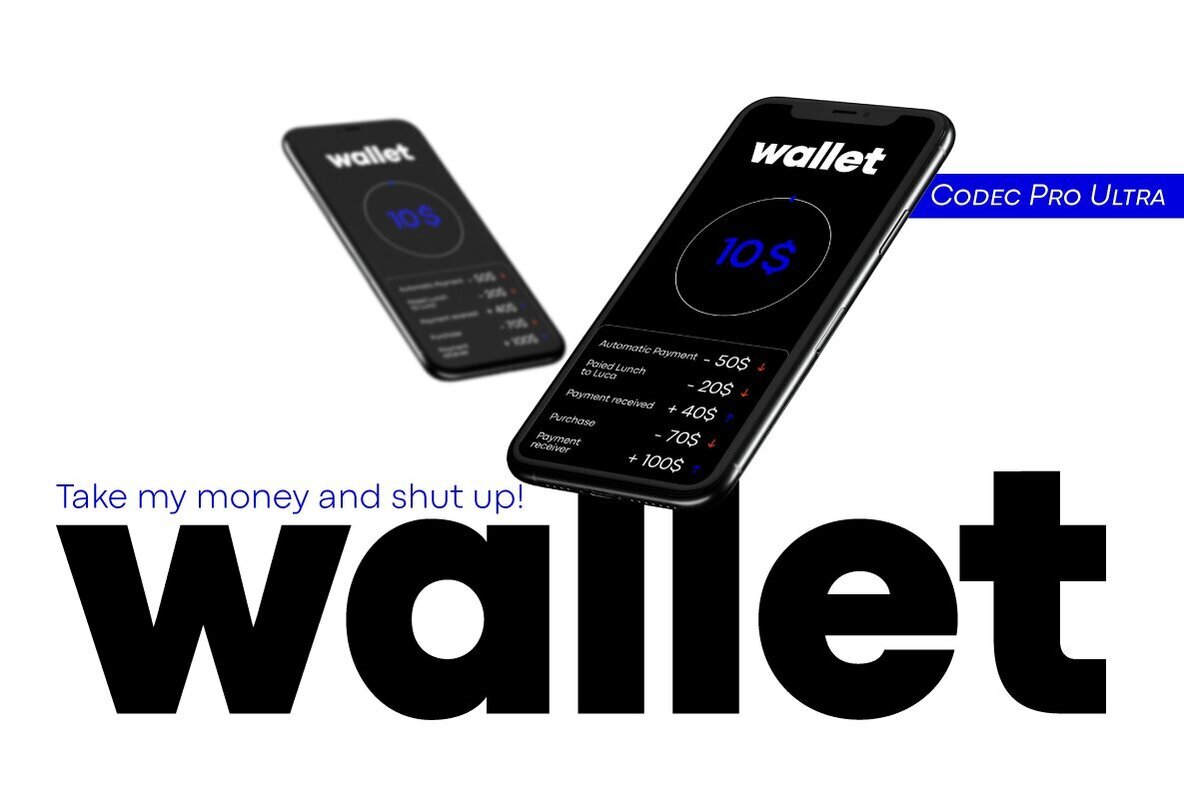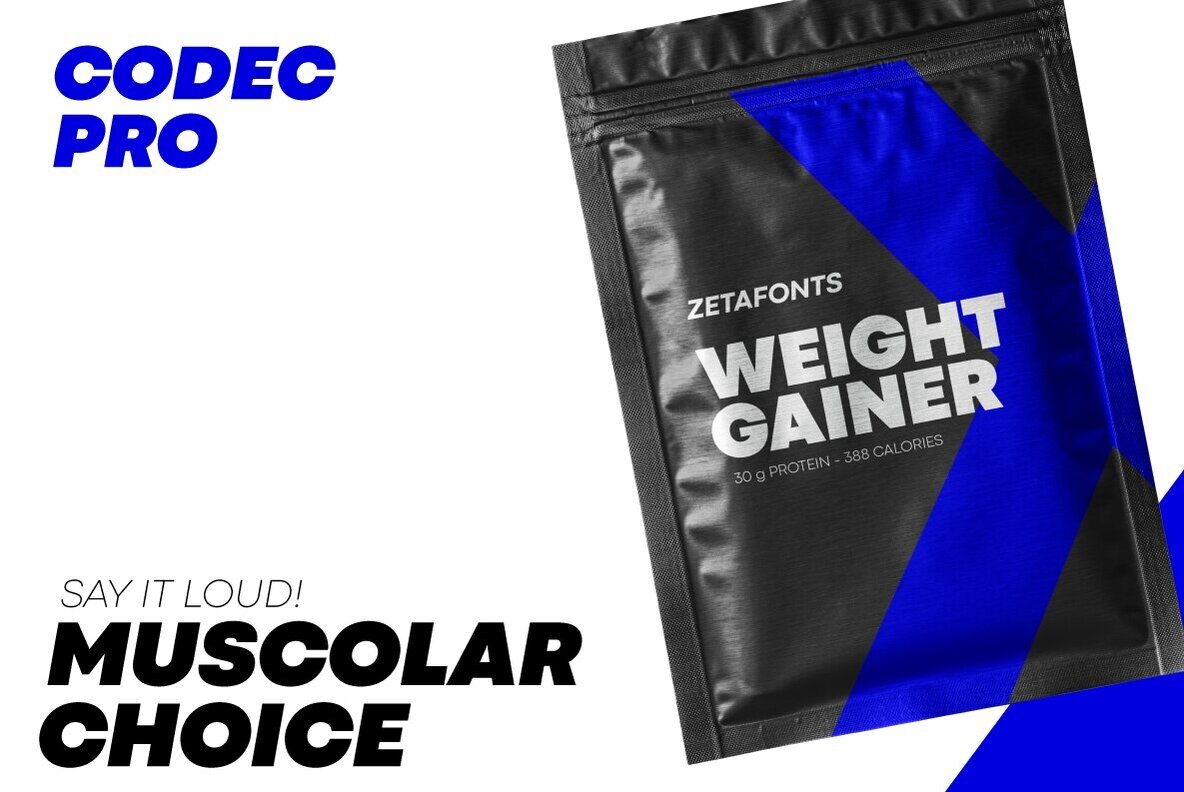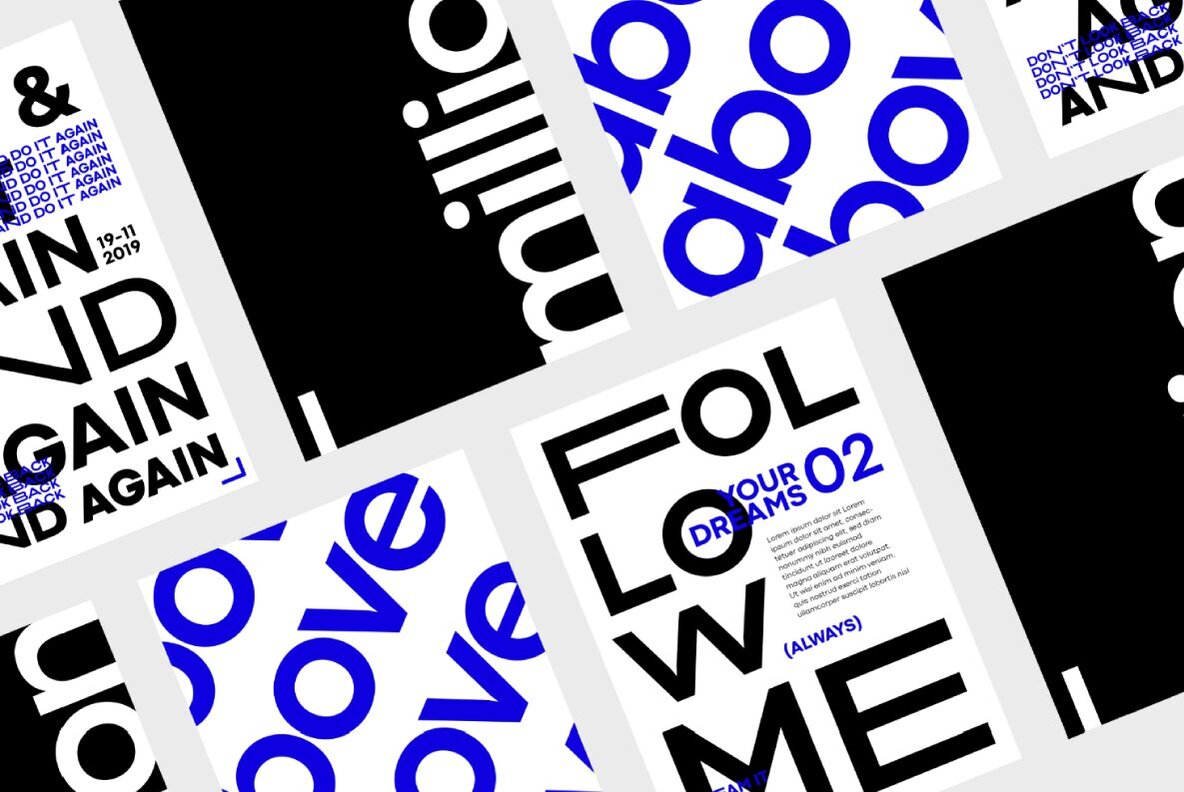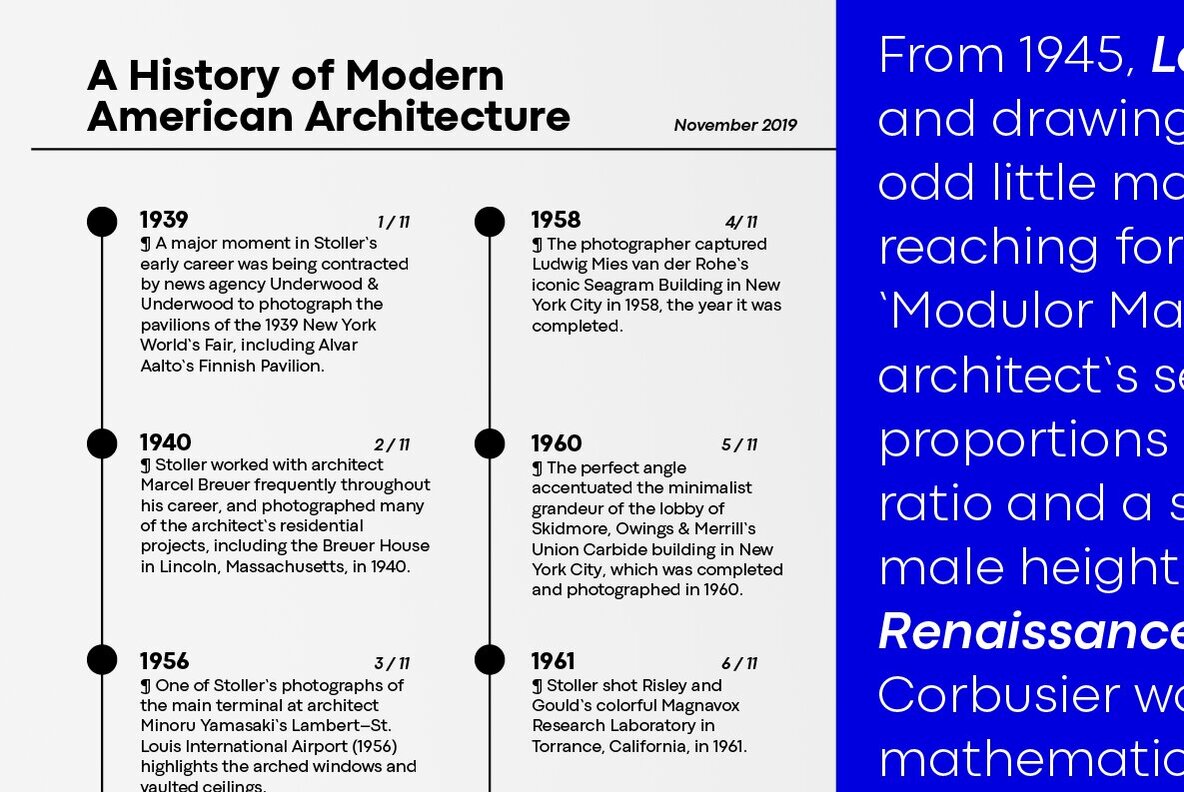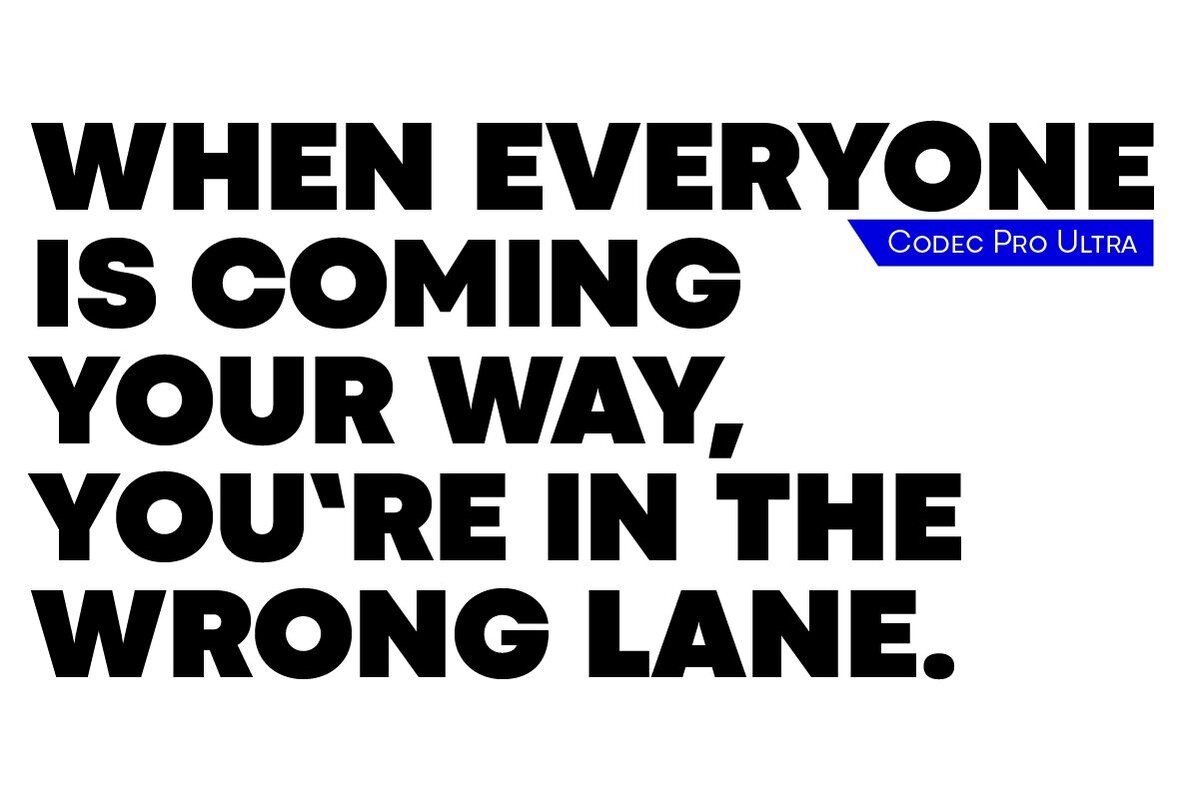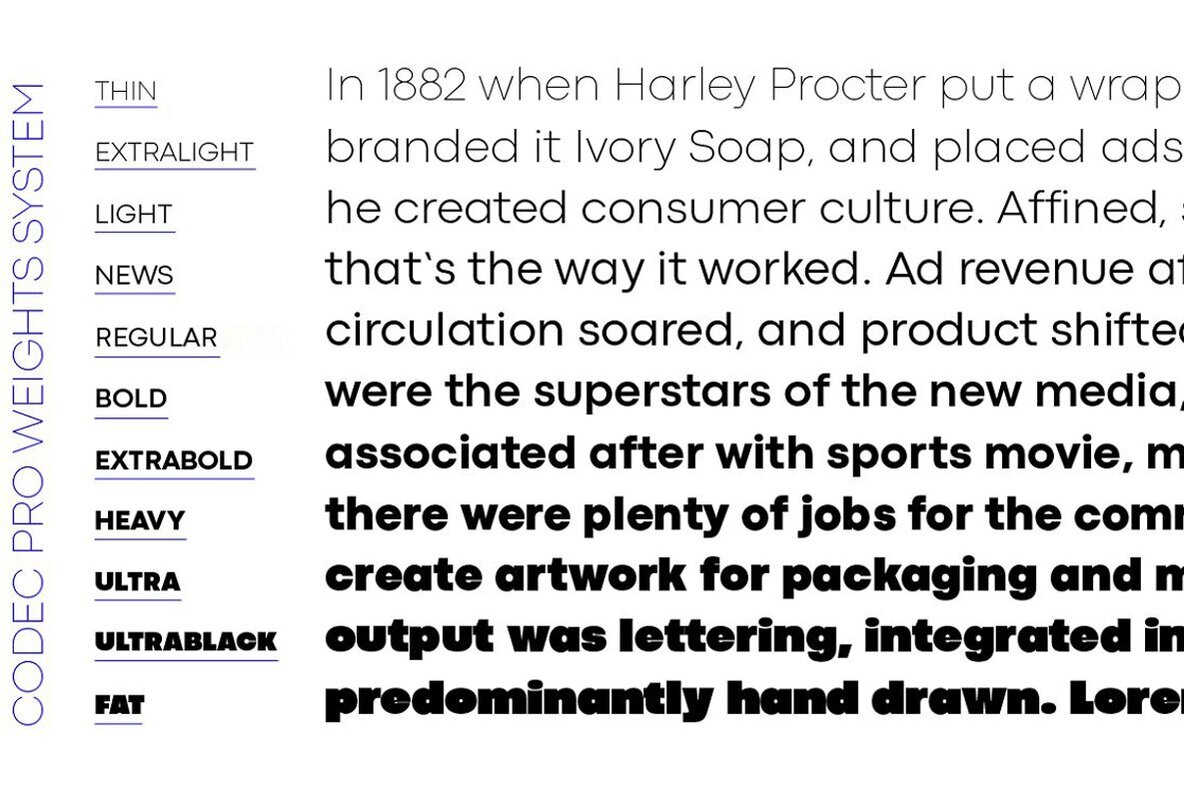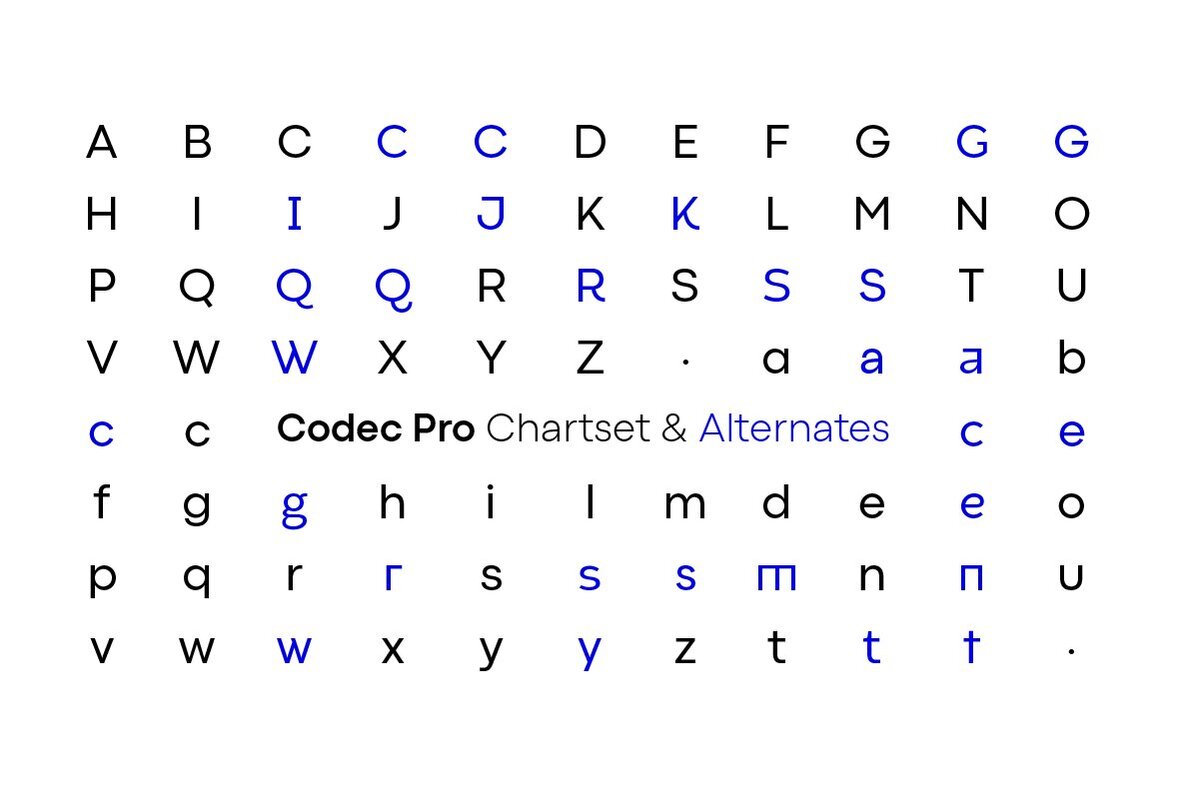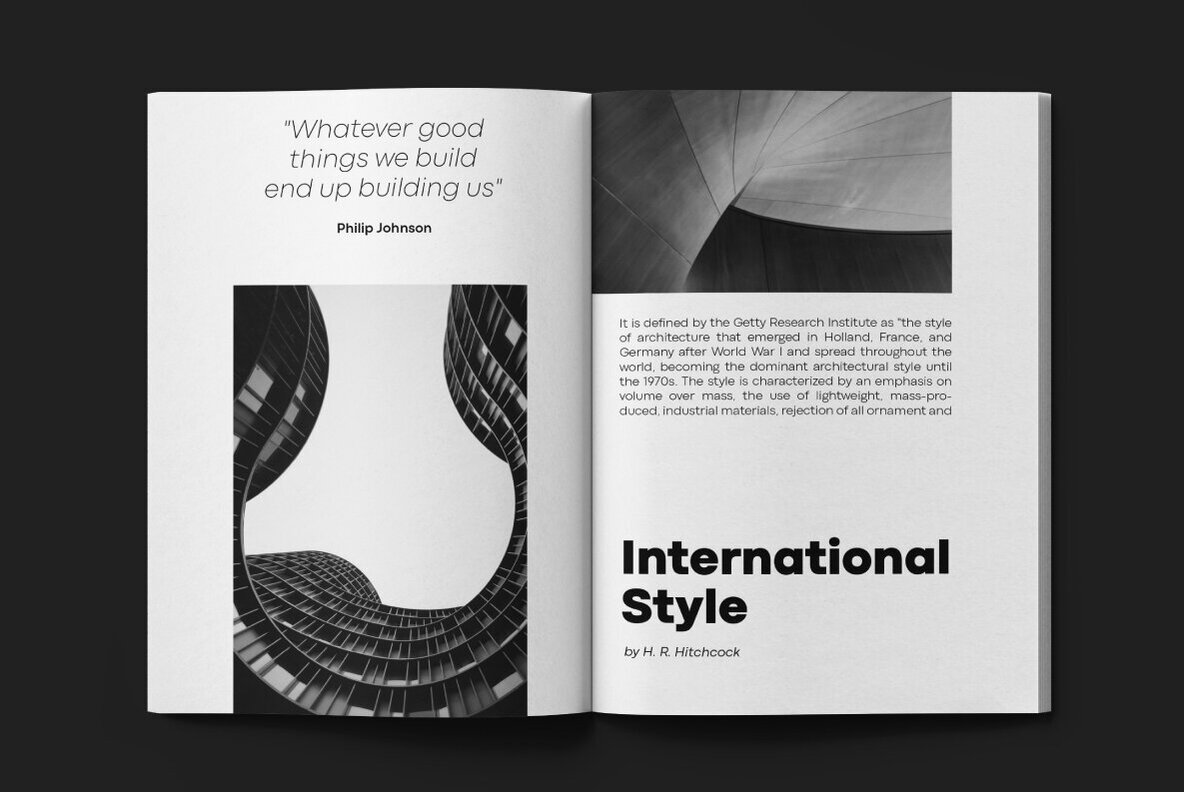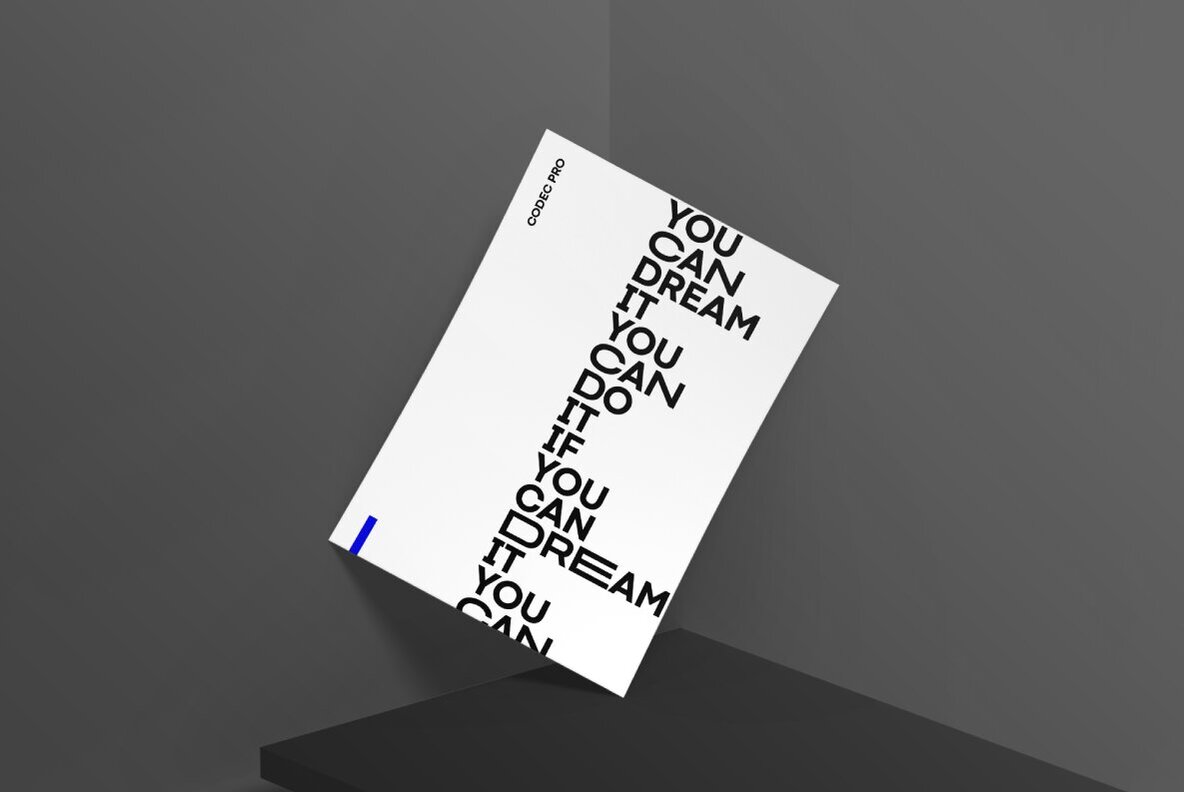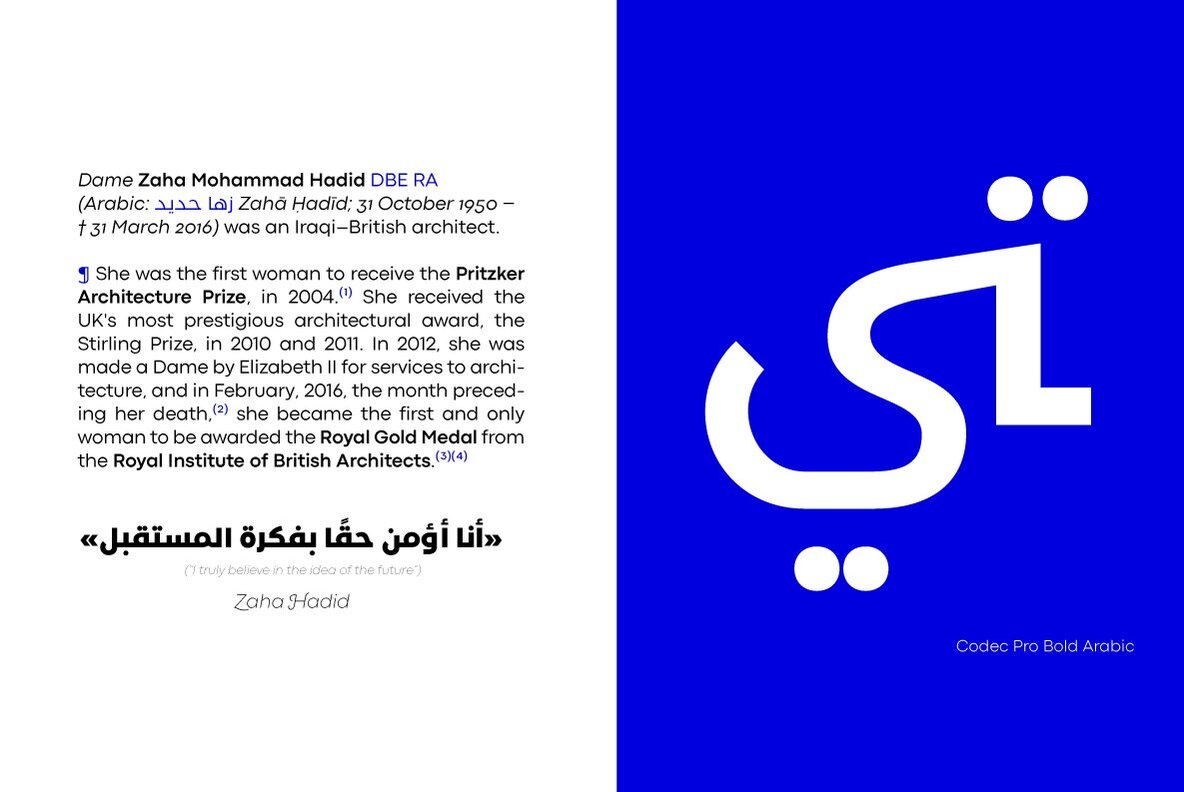
Codec Pro Font
Codec Pro is the newest incarnation of the Codec family, developed in 2017 by Francesco Canovaro, Cosimo Lorenzo Pancini and Andrea Tartarelli as a research on the subtleties and the variations on the theme of the geometric sans-serif design.
The original typeface has been completely redesigned and expanded to feature a wide range of eleven weights, from the hairline thin to the bulky fat, while the character set has been extended to include not only latin, cyrillic and greek but also arabic, farsi and urdu scripts.
A veritable swiss-knife for the designer, Codec Pro also includes a wide range of alternates and stylistic sets that cover all the subfamilies and the moods of the original type system. So while the standard set (Codec Cold) has terminals cut parallel or perpendicular to the baseline, emphasizing geometry for a more construceted look, stylistic set 4 (Codec Warm) uses open diagonal cuts and humanist shapes to give the typeface a gentler, warmer feeling. Set 3 (Codec Cold Logo) comes alive with funky ligatures, while Set 5 (Codec Warm Logo) stretches uppercase characters horizontally for a dynamic, unexpect effect